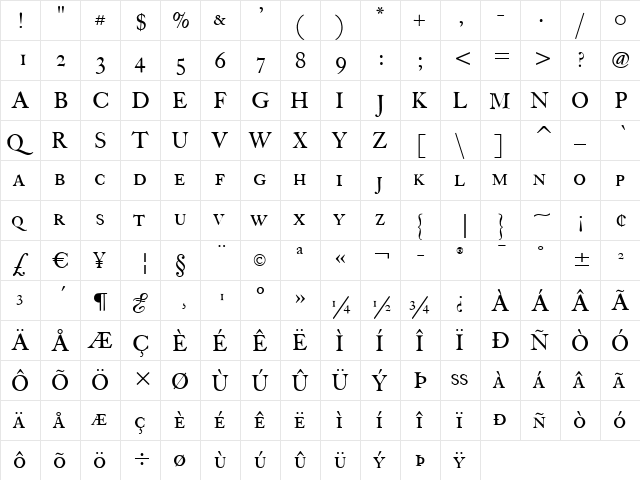
FCaslon 30 ITC Roman
Design Context for FCaslon 30 ITC Typeface
FCaslon 30 ITC offers clean, dependable letterforms without strong stylistic allegiance, making it a practical choice for designers who need flexibility.